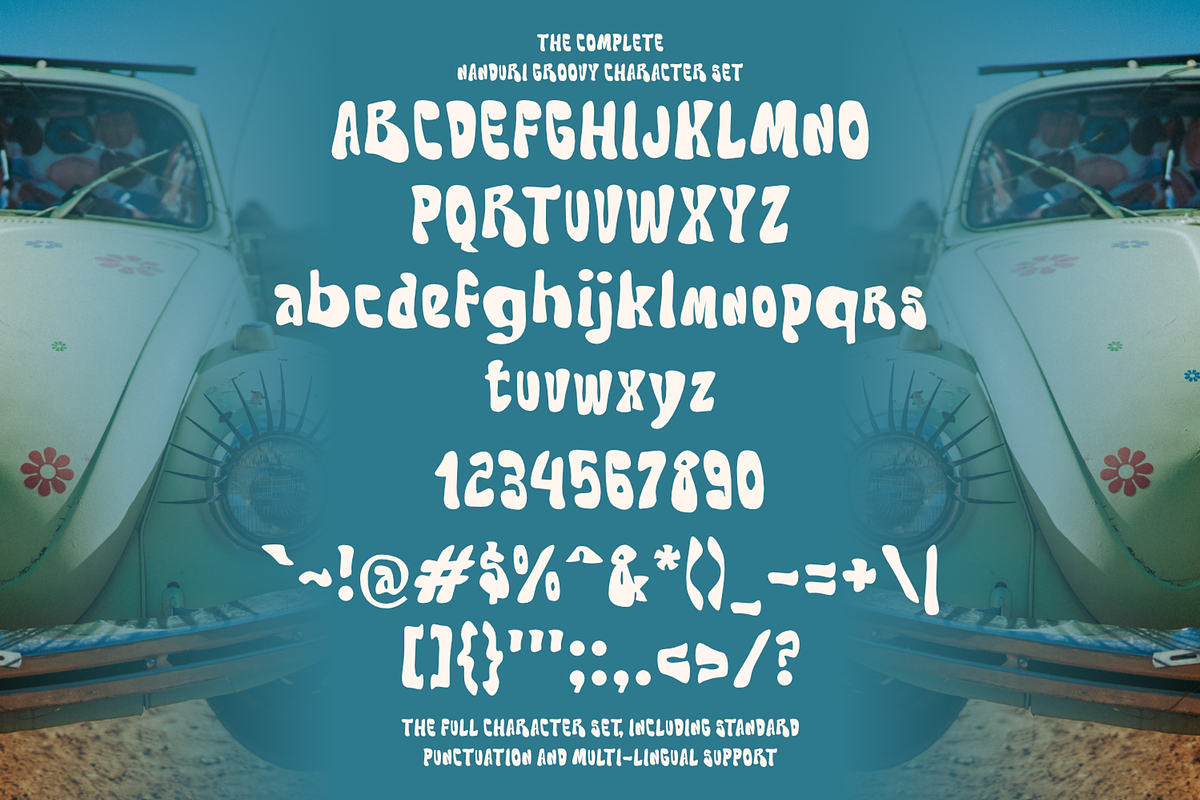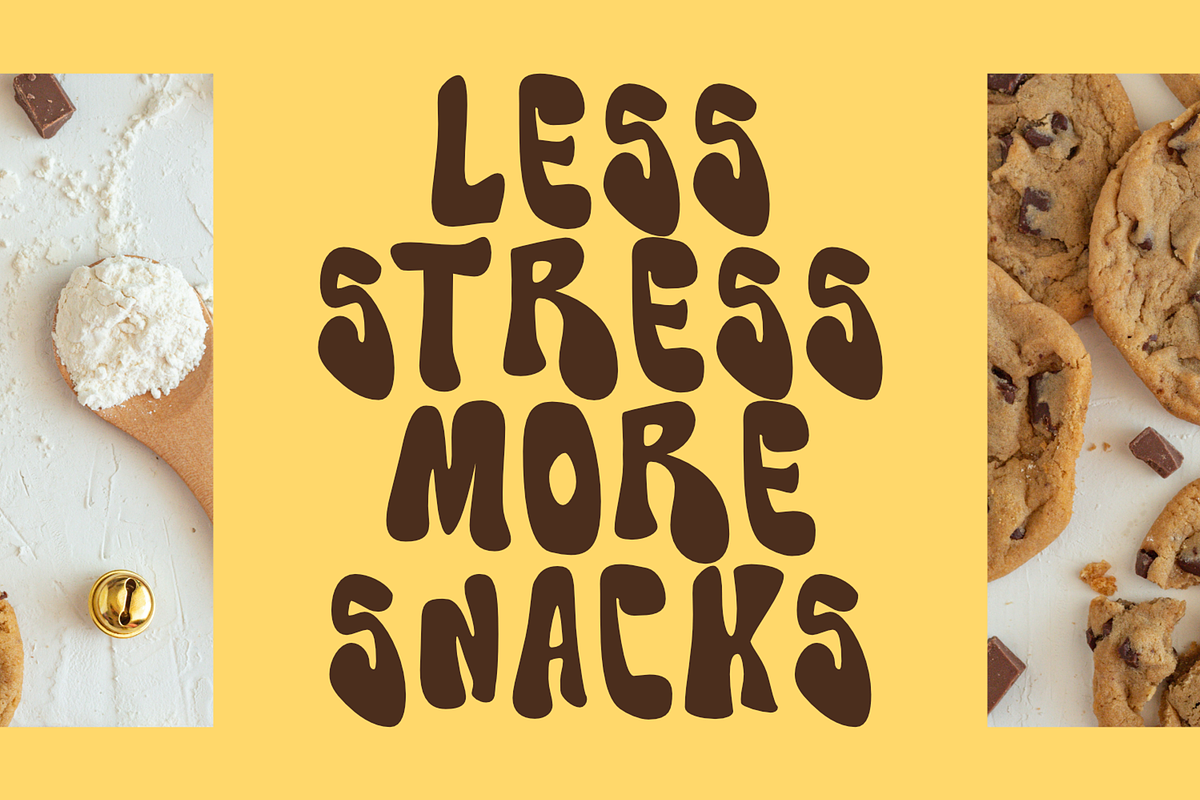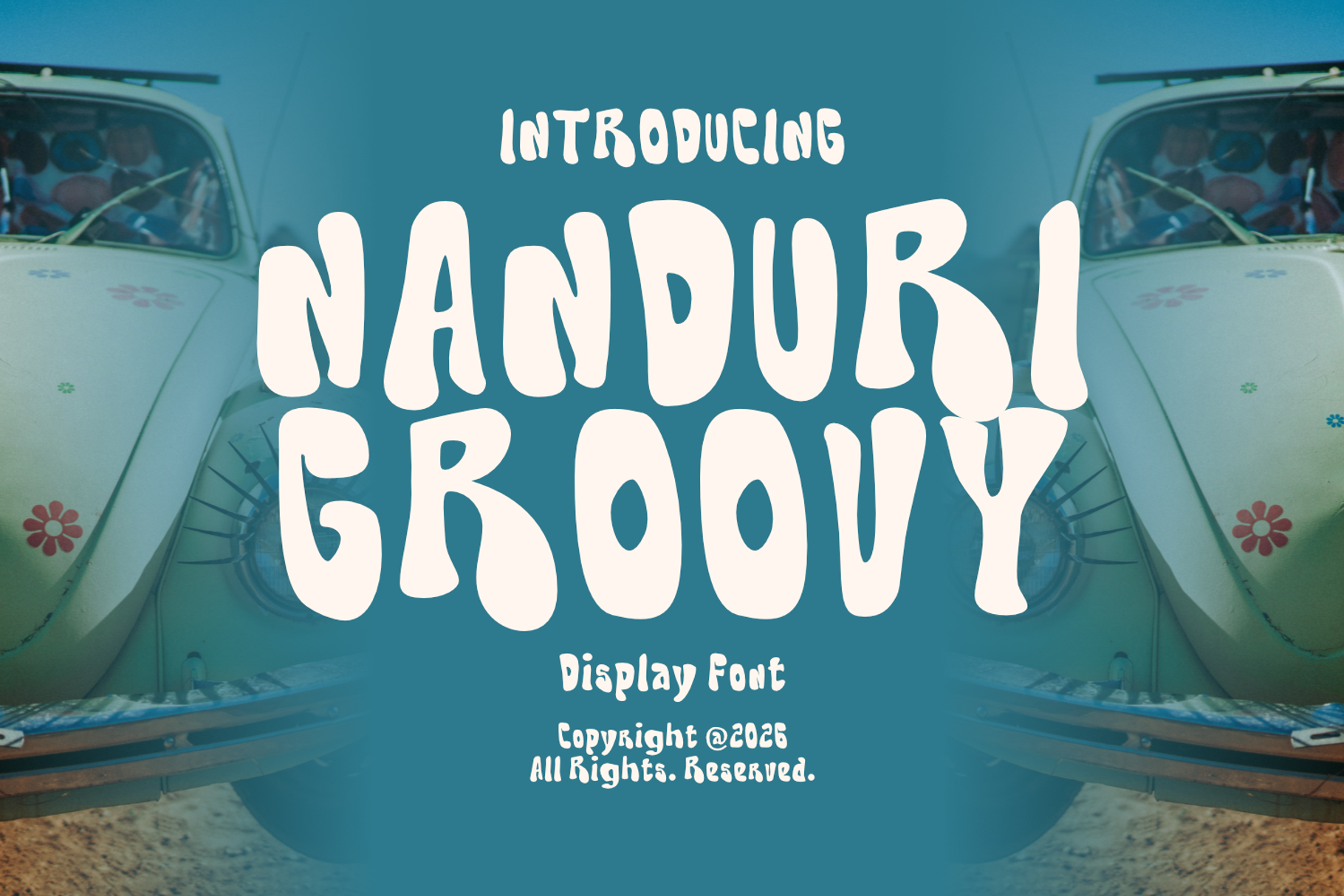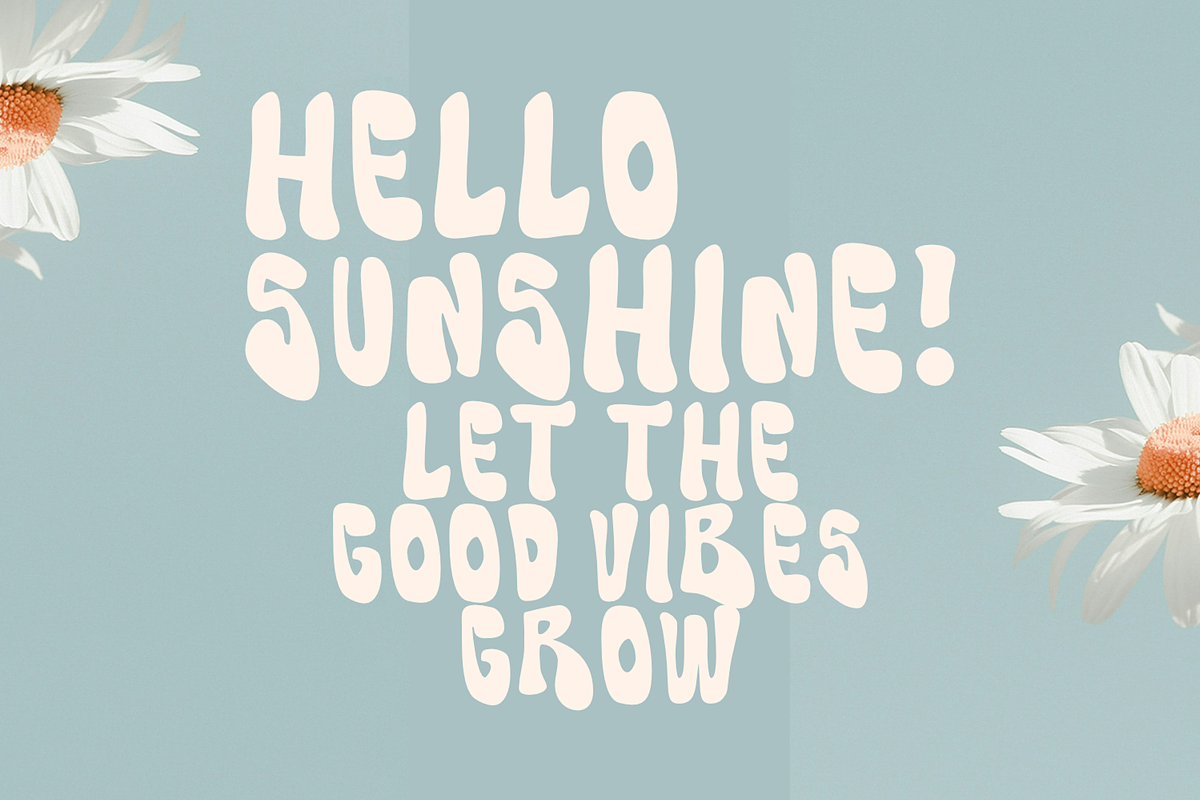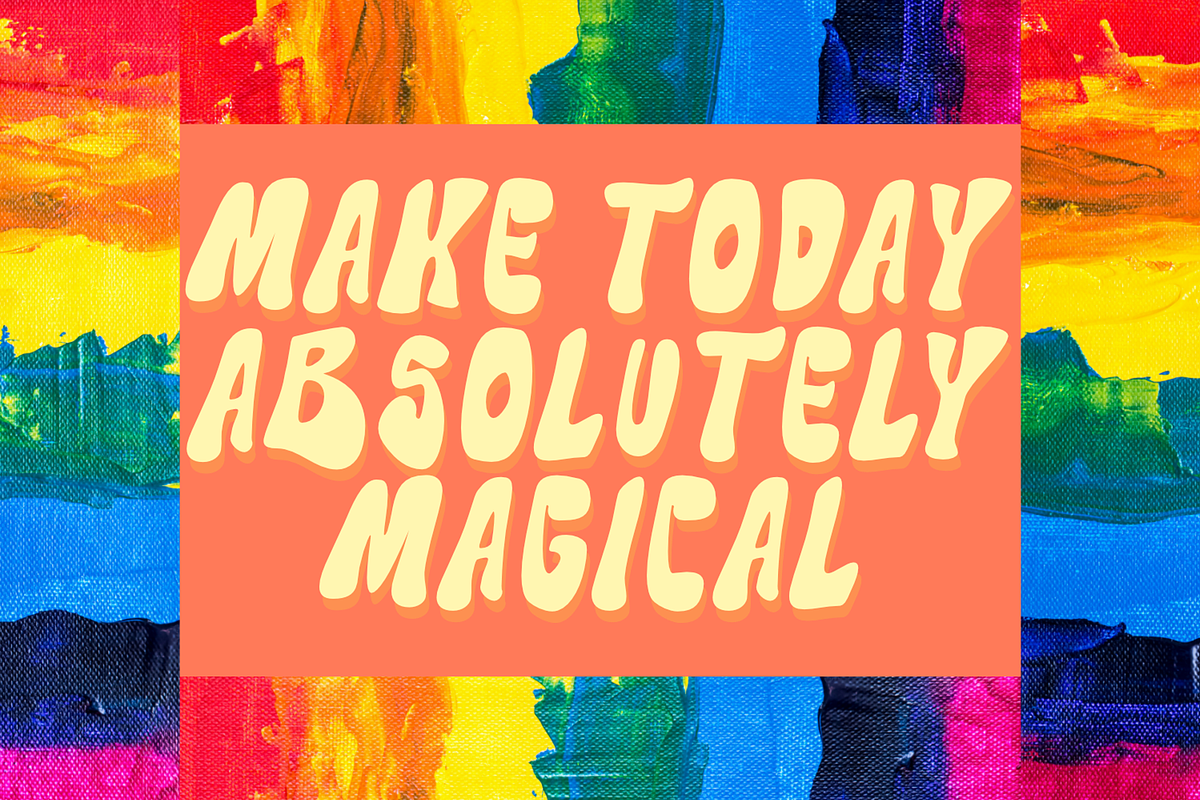
Nanduri Groovy Playful Display Font
Nanduri Groovy is a playful retro display font inspired by the funky typography of the 70s. With its chunky organic shapes, hand-drawn curves, and groovy personality, this font brings a fun and cheerful vibe to any design project.
Perfect for posters, logos, packaging, stickers, branding, social media graphics, children’s products, and creative headlines, Nanduri Groovy adds a bold statement while keeping a friendly and whimsical feel.
Whether you’re creating vintage-inspired artwork or modern playful branding, this font will make your designs stand out with its unique handmade character and eye-catching style.
Retro & vintage designs
Kids branding
Posters & packaging
Stickers & labels
Social media content
Fun logo design
Creative merchandise
Handmade craft projects
Regular & Italic